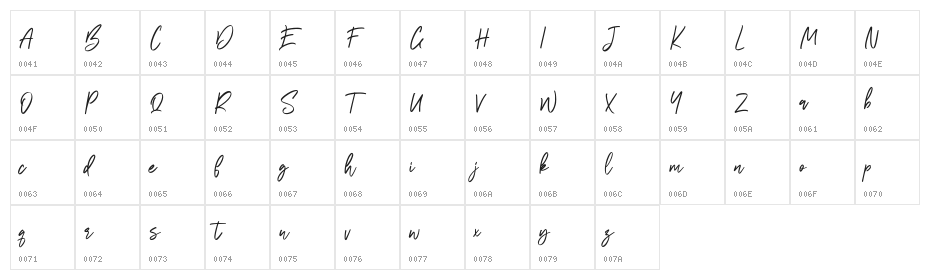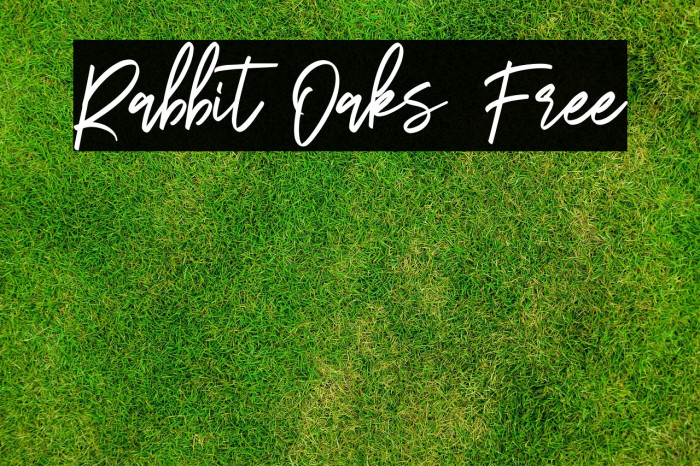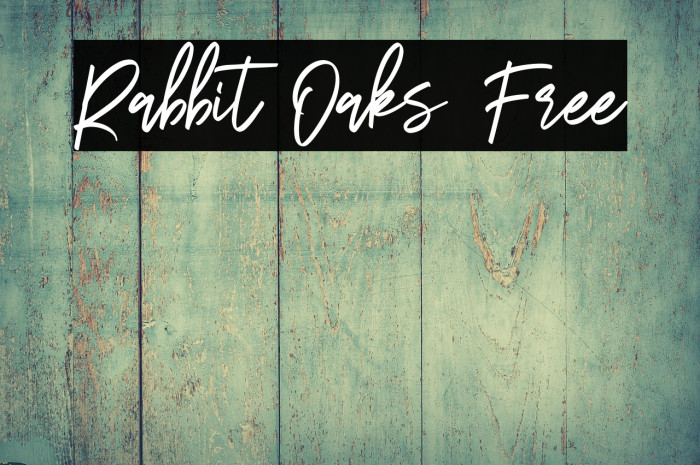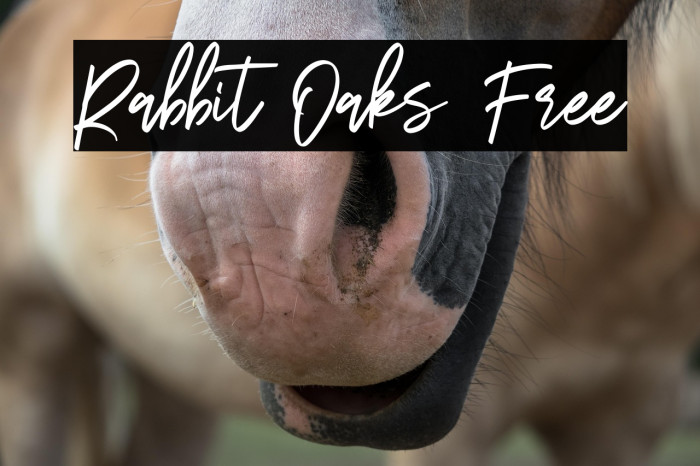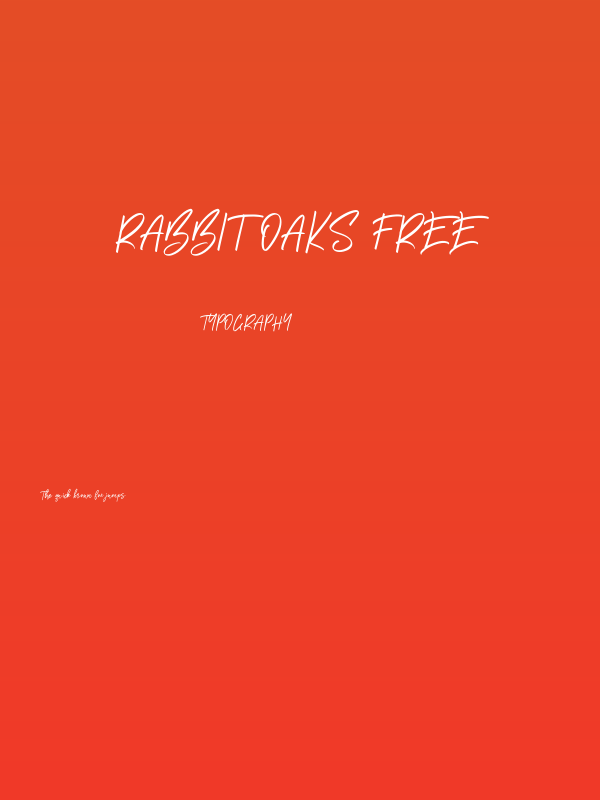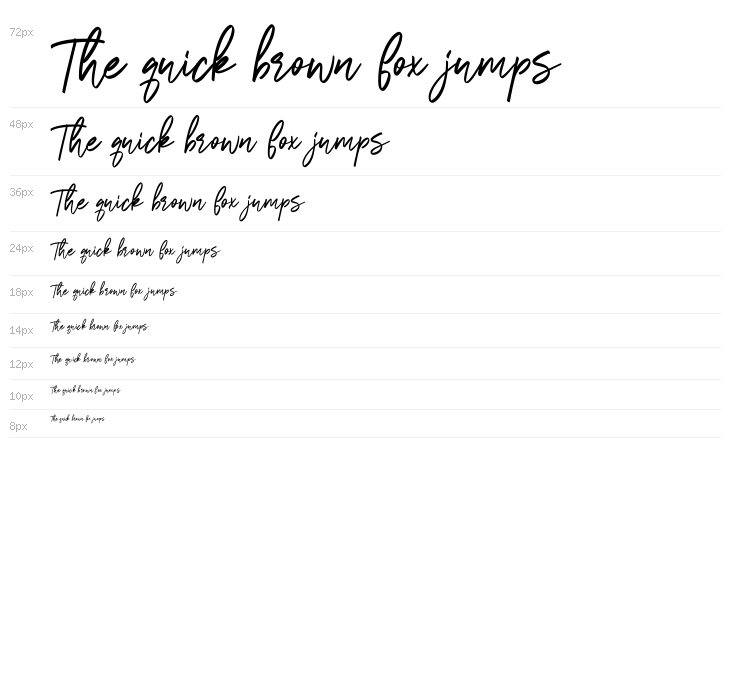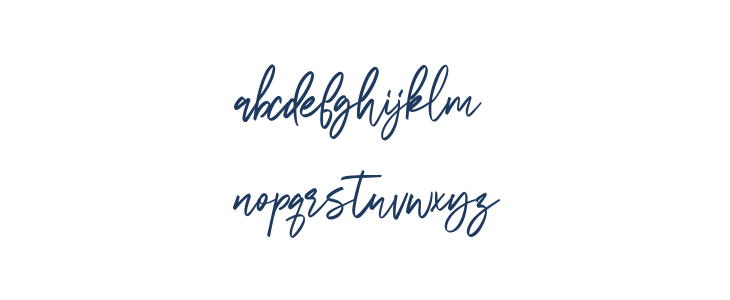
Rabbit Oaks Free Font
Rabbit Oaks Free Description
This font features a dynamic and flowing script style, characterized by its elegant and fluid strokes. The letters are interconnected, creating a sense of continuity and movement. The uppercase letters are bold and slightly slanted, while the lowercase letters maintain a consistent rhythm with a more delicate touch. The overall appearance is both modern and artistic, making it suitable for creative projects. The font's design is versatile, allowing it to be used in various contexts where a personal and expressive touch is desired.
| Proposed Projects | Ideal for wedding invitations, greeting cards, branding projects, and social media graphics. |